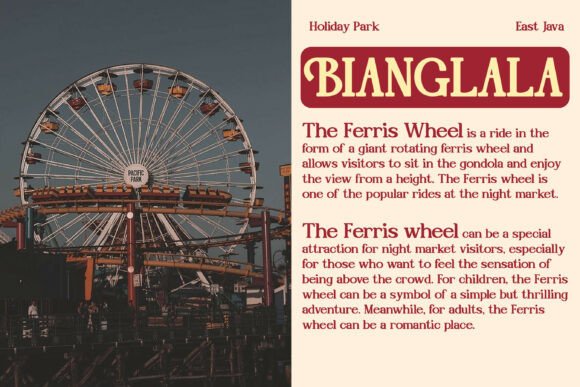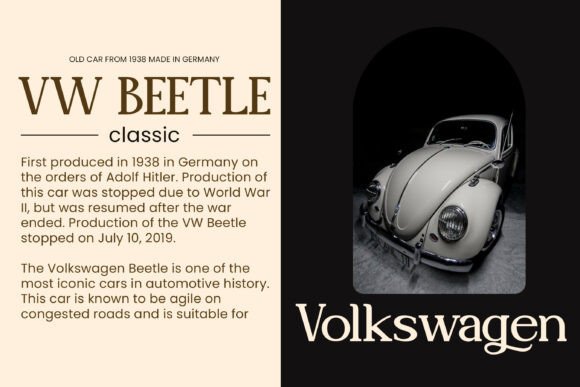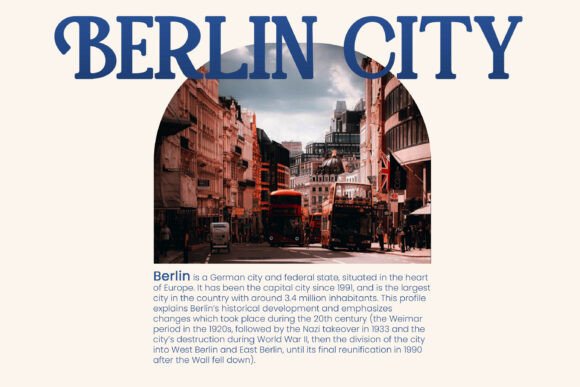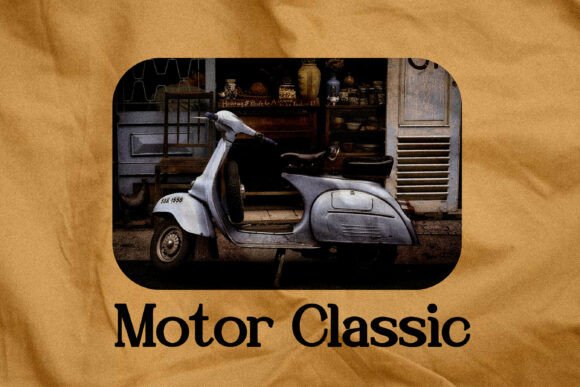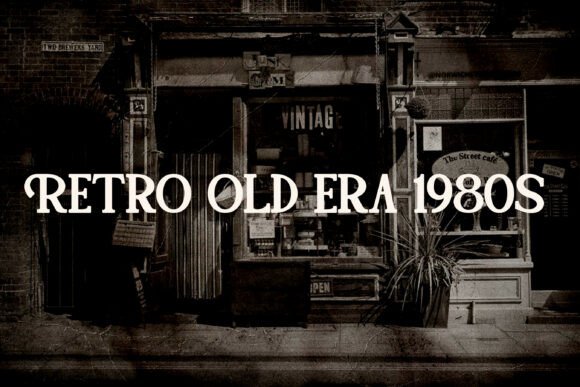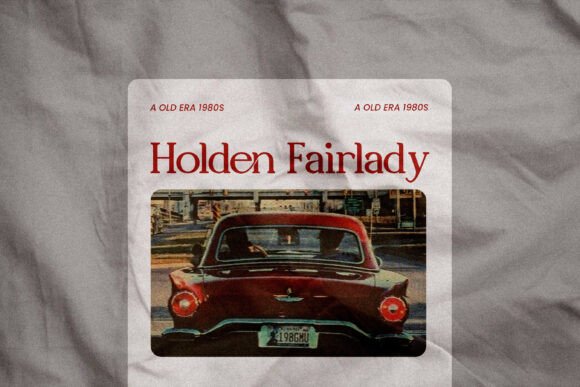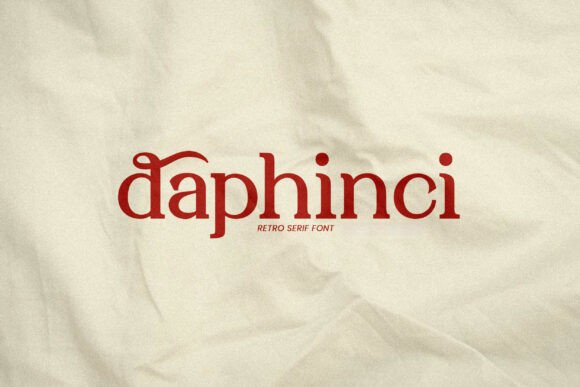
Daphinci Font: A Retro Serif Revival with a Modern Twist
In the world of typography, fonts play a crucial role in conveying the tone and aesthetic of a brand or design. For designers and crafters looking to add a touch of nostalgia to their work, the Daphinci Font is an excellent choice. This retro serif font brings a classic charm with a modern twist, making it perfect for creating standout headlines, posters, logos, and branding that exude a timeless appeal.
The Characteristics of Daphinci Font
Daphinci Font is a beautifully crafted retro serif font that boasts stylish curves and vintage-inspired details. Its unique design elements evoke a sense of nostalgia, transporting us back to an era of classic elegance and sophistication. The font’s serif features add a touch of refinement, making it suitable for a wide range of design applications.
One of the standout features of Daphinci Font is its perfect blend of traditional and modern elements. The font’s curves and lines are carefully crafted to create a sense of fluidity and movement, while its vintage-inspired details add a touch of warmth and character. This blend of old and new makes Daphinci Font an excellent choice for designers looking to create unique and eye-catching designs.
Uses of Daphinci Font
Daphinci Font is an incredibly versatile font that can be used in a variety of design applications. Here are some of the ways you can use this beautiful retro serif font:
- Headlines and Titles: Daphinci Font is perfect for creating standout headlines and titles that grab attention. Its stylish curves and vintage-inspired details make it an excellent choice for newspaper and magazine headlines, book titles, and blog posts.
- Posters and Flyers: The font’s classic charm and modern twist make it an excellent choice for creating eye-catching posters and flyers. Use it to promote events, products, or services in a way that’s both nostalgic and fresh.
- Logos and Branding: Daphinci Font is an excellent choice for creating logos and branding materials that exude a timeless appeal. Use it to create a unique and memorable brand identity that sets you apart from the competition.
- Packaging and Product Design: The font’s vintage-inspired details and classic charm make it an excellent choice for packaging and product design. Use it to create labels, packaging, and product materials that evoke a sense of nostalgia and sophistication.
Why Choose Daphinci Font?
So, why choose Daphinci Font over other fonts? Here are some compelling reasons to consider:
- Unique Design: Daphinci Font boasts a unique design that’s both nostalgic and modern. Its stylish curves and vintage-inspired details make it an excellent choice for designers looking to create standout designs.
- Versatility: The font is incredibly versatile and can be used in a wide range of design applications, from headlines and titles to logos and branding.
- Easy to Read: Despite its ornate details, Daphinci Font is easy to read, making it an excellent choice for body text and other applications where readability is crucial.
- Customizable: The font is highly customizable, allowing you to adjust its size, color, and style to suit your design needs.
In conclusion, Daphinci Font is an excellent choice for designers and crafters looking to add a touch of nostalgia to their work. Its unique blend of traditional and modern elements makes it perfect for creating standout headlines, posters, logos, and branding that exude a timeless appeal. With its versatility, readability, and customizability, Daphinci Font is an excellent addition to any designer’s toolkit.